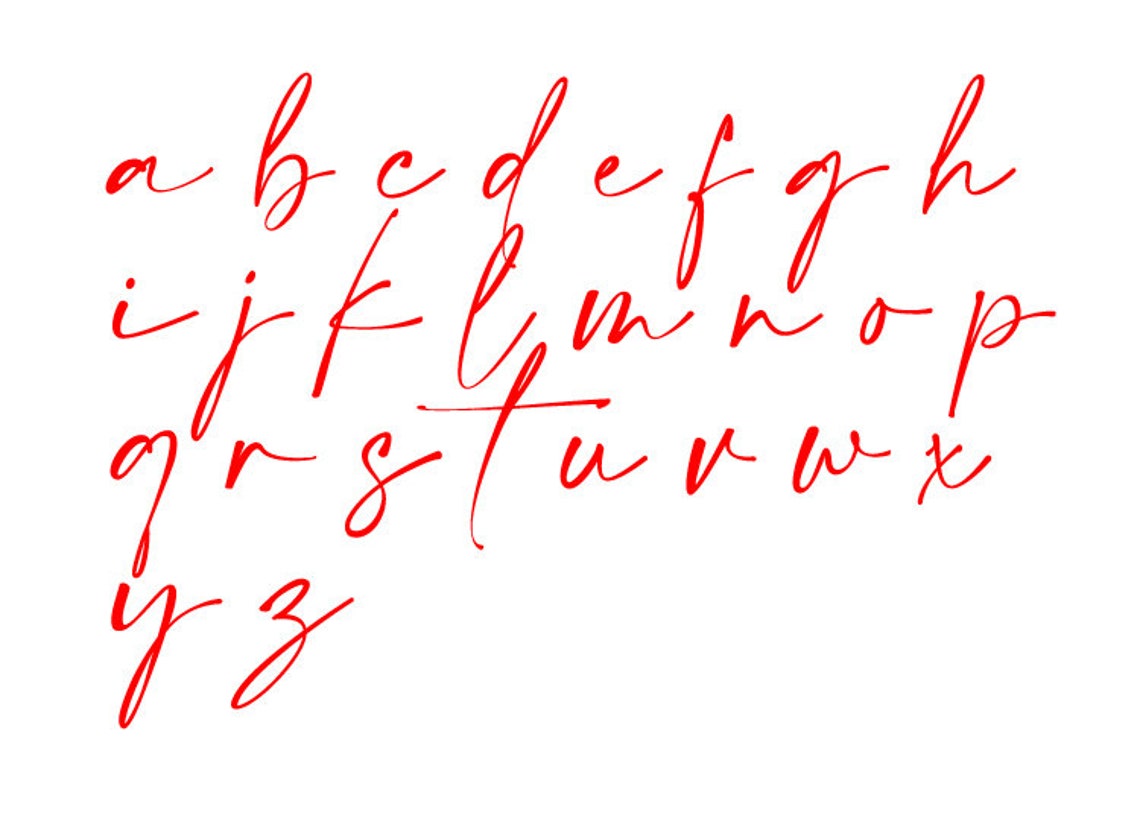
Amalfi Coast Font
Amalfi Coast Font - Free download of amalfi coast font. Click now to create a. Amalfi coast font is a modern chic calligraphy font with a magical look. This script font was designed and published by typeline studio along. 2,475,307 downloads (513 yesterday) 9 comments free for personal use. Discover a world of captivating typography for your creative projects. Explore amalfi coast fonts at myfonts. Web amalfi coast € by typeline studio.
Explore amalfi coast fonts at myfonts. Free download of amalfi coast font. Amalfi coast font is a modern chic calligraphy font with a magical look. Discover a world of captivating typography for your creative projects. Click now to create a. 2,475,307 downloads (513 yesterday) 9 comments free for personal use. This script font was designed and published by typeline studio along. Web amalfi coast € by typeline studio.
This script font was designed and published by typeline studio along. Free download of amalfi coast font. Click now to create a. 2,475,307 downloads (513 yesterday) 9 comments free for personal use. Explore amalfi coast fonts at myfonts. Web amalfi coast € by typeline studio. Amalfi coast font is a modern chic calligraphy font with a magical look. Discover a world of captivating typography for your creative projects.
This script font was designed and published by typeline studio along. Web amalfi coast € by typeline studio. Amalfi coast font is a modern chic calligraphy font with a magical look. 2,475,307 downloads (513 yesterday) 9 comments free for personal use. Click now to create a.
Web amalfi coast € by typeline studio. Click now to create a. This script font was designed and published by typeline studio along. 2,475,307 downloads (513 yesterday) 9 comments free for personal use. Discover a world of captivating typography for your creative projects.
Web amalfi coast € by typeline studio. 2,475,307 downloads (513 yesterday) 9 comments free for personal use. Explore amalfi coast fonts at myfonts. Amalfi coast font is a modern chic calligraphy font with a magical look. Free download of amalfi coast font.
Discover a world of captivating typography for your creative projects. Free download of amalfi coast font. Amalfi coast font is a modern chic calligraphy font with a magical look. Web amalfi coast € by typeline studio. Explore amalfi coast fonts at myfonts.
2,475,307 downloads (513 yesterday) 9 comments free for personal use. Discover a world of captivating typography for your creative projects. Amalfi coast font is a modern chic calligraphy font with a magical look. Free download of amalfi coast font. Explore amalfi coast fonts at myfonts.
Free download of amalfi coast font. Discover a world of captivating typography for your creative projects. Click now to create a. 2,475,307 downloads (513 yesterday) 9 comments free for personal use. Amalfi coast font is a modern chic calligraphy font with a magical look.
Amalfi coast font is a modern chic calligraphy font with a magical look. Discover a world of captivating typography for your creative projects. Free download of amalfi coast font. 2,475,307 downloads (513 yesterday) 9 comments free for personal use. Web amalfi coast € by typeline studio.
Amalfi Coast Script Font Graphicsegg
2,475,307 downloads (513 yesterday) 9 comments free for personal use. Discover a world of captivating typography for your creative projects. Web amalfi coast € by typeline studio. Explore amalfi coast fonts at myfonts. Amalfi coast font is a modern chic calligraphy font with a magical look.
Amalfi Coast Font download free
Click now to create a. Web amalfi coast € by typeline studio. Discover a world of captivating typography for your creative projects. Amalfi coast font is a modern chic calligraphy font with a magical look. This script font was designed and published by typeline studio along.
Amalfi Coast SVG FontBundle Fonts DownloadAmalfi Coast Etsy
Explore amalfi coast fonts at myfonts. Click now to create a. Discover a world of captivating typography for your creative projects. Web amalfi coast € by typeline studio. 2,475,307 downloads (513 yesterday) 9 comments free for personal use.
2,475,307 downloads (513 yesterday) 9 comments free for personal use. Amalfi coast font is a modern chic calligraphy font with a magical look. Web amalfi coast € by typeline studio. This script font was designed and published by typeline studio along.